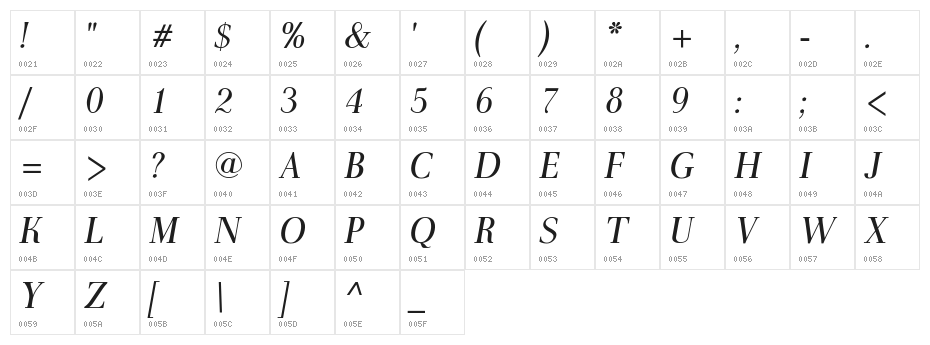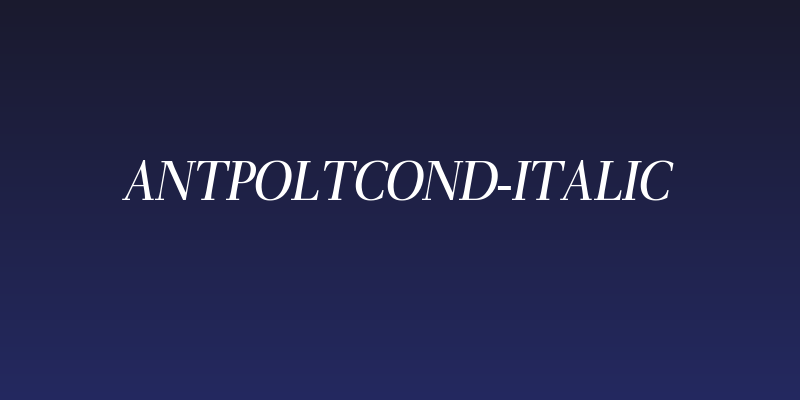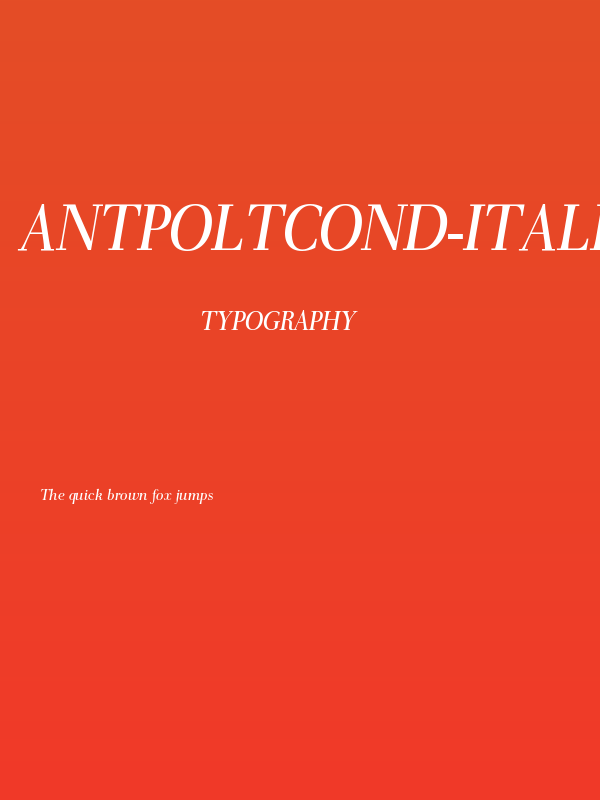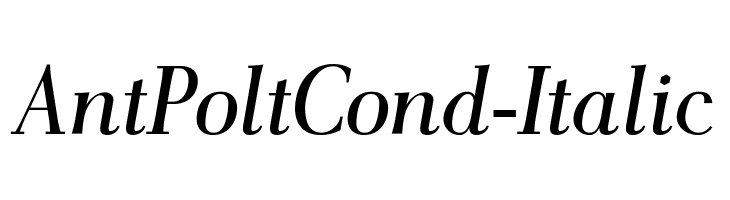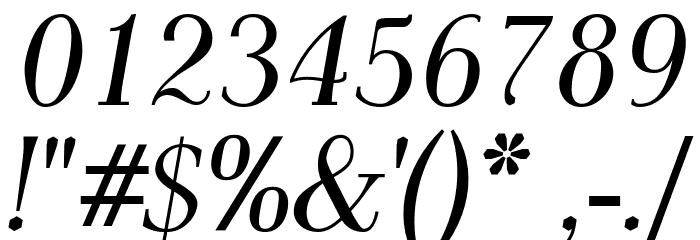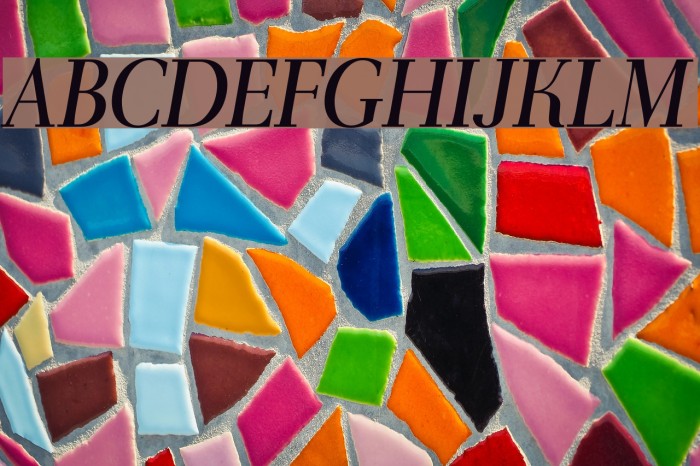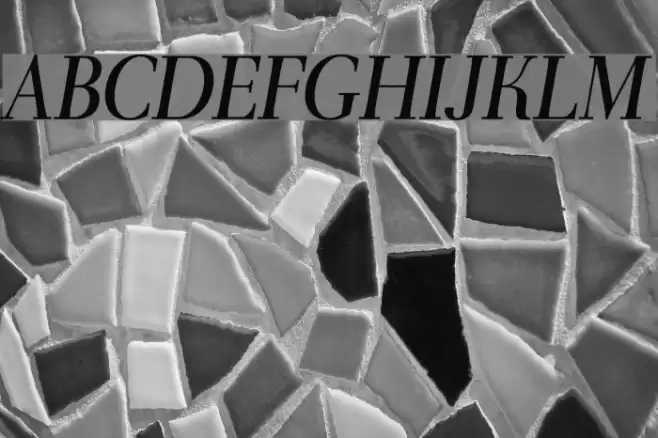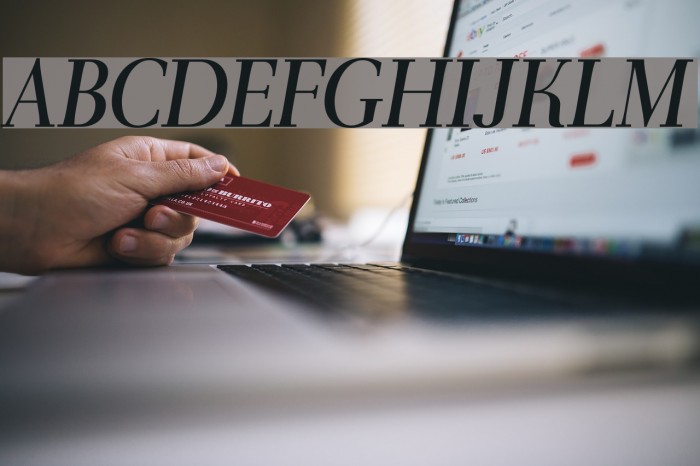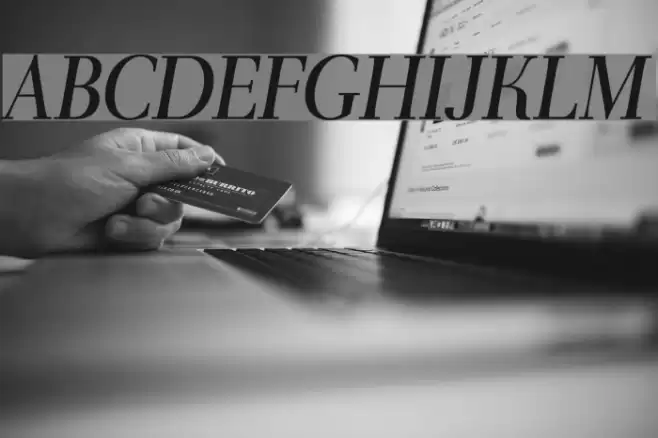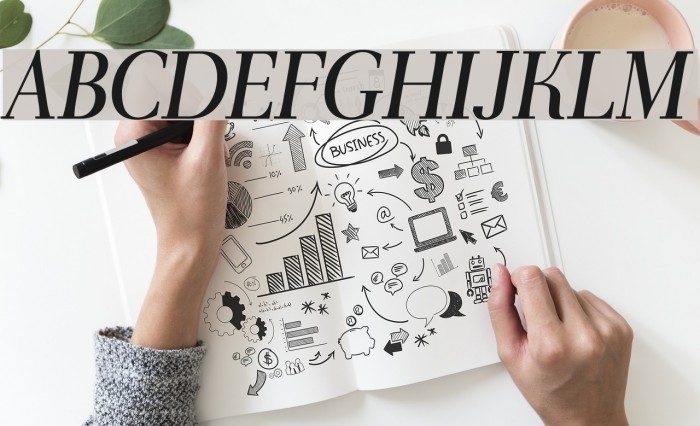
AntPoltCond-Italic Font
AntPoltCond-Italic Description
This font features a sophisticated and elegant italic style, characterized by its slanted and flowing letterforms. The characters exhibit a refined contrast between thick and thin strokes, enhancing its classic appeal. The uppercase letters are tall and graceful, while the lowercase letters maintain a consistent and harmonious flow. The numerals are proportionate and blend seamlessly with the alphabetic characters. Special characters are designed with the same attention to detail, ensuring uniformity across the font. Its condensed width allows for efficient use of space, making it suitable for a variety of design applications.
| Use Case | Headlines, Logos, Editorial design |
| Proposed Projects | Ideal for elegant invitations, sophisticated branding, editorial design, and luxury product packaging. |